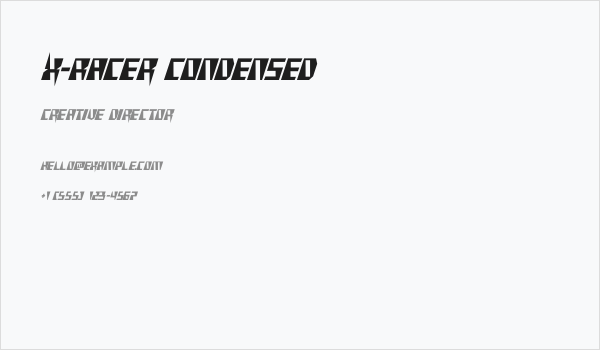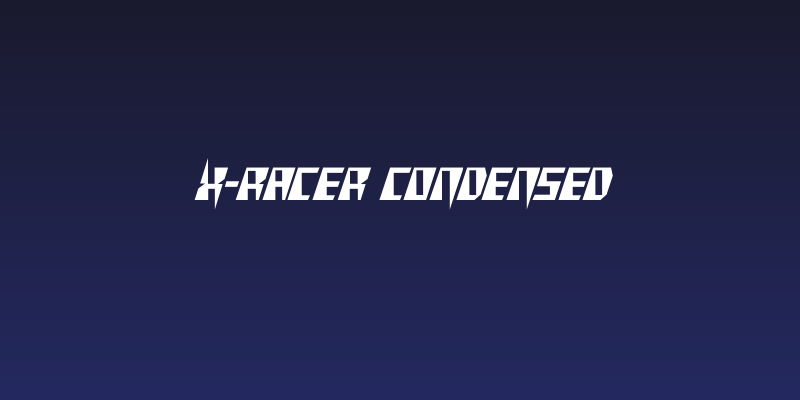
X-Racer Condensed Font
X-Racer Condensed Description
This font features a bold, dynamic design with sharp, angular edges and a futuristic aesthetic. The characters are condensed, giving a compact and sleek appearance. The design incorporates a sense of motion and speed, with diagonal cuts and pointed ends that suggest forward movement. The uppercase and lowercase letters maintain a consistent style, enhancing the overall cohesiveness. The numerals and special characters follow the same angular theme, ensuring uniformity across all elements. This font is ideal for projects that require a modern and energetic look.
| Proposed Projects | Ideal for sports branding, automotive designs, video game titles, and technology-related projects. |